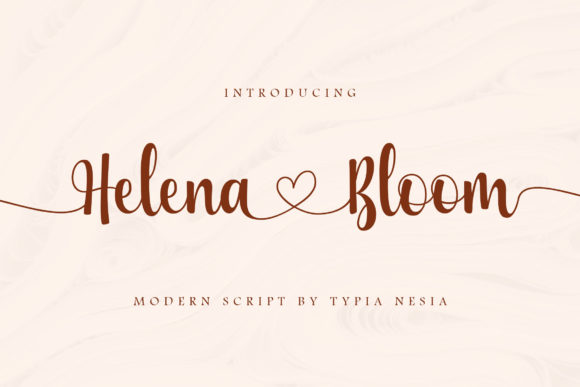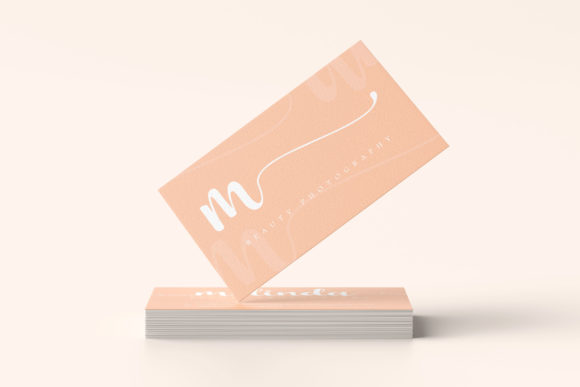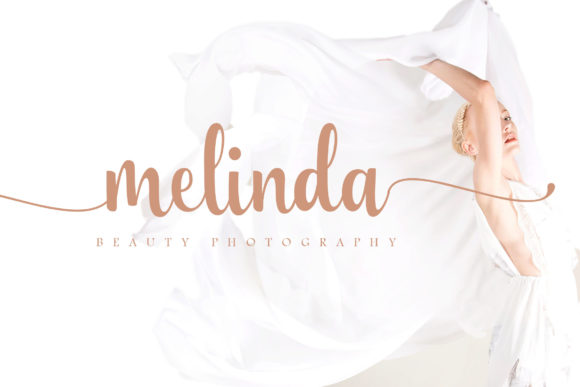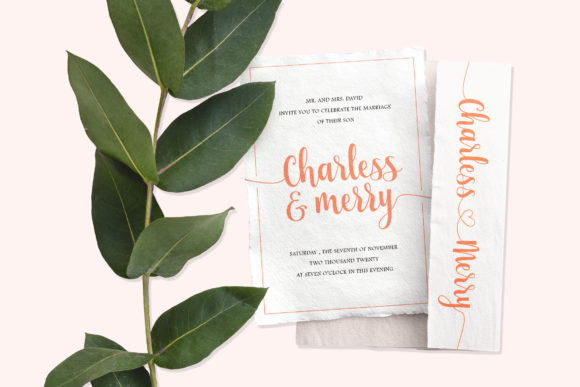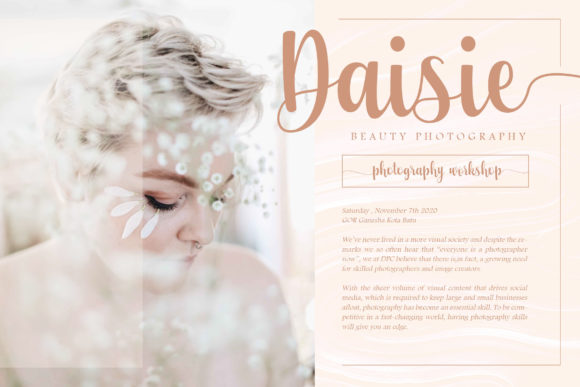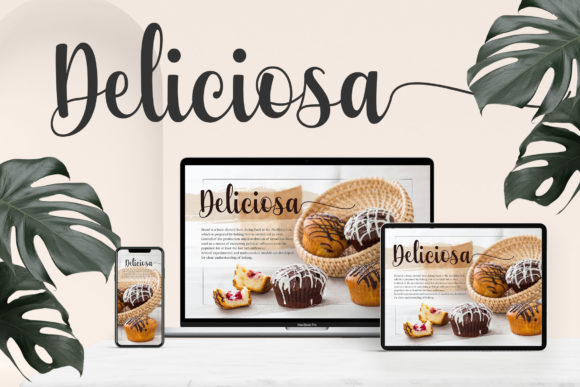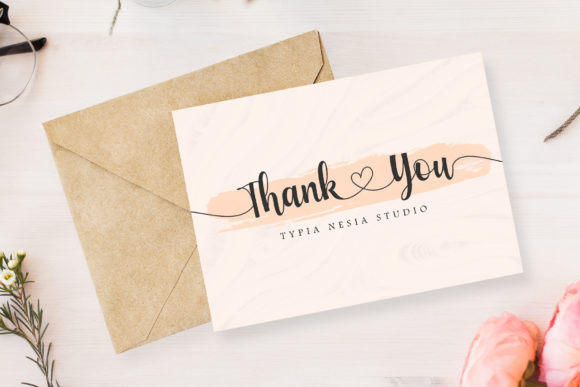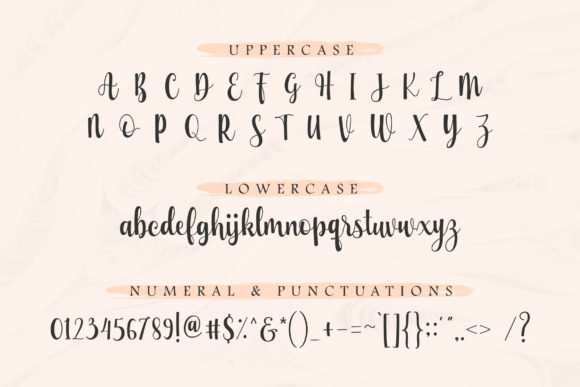
Helena Bloom Font
Helena Bloom is a romantic and delicate handwritten font, featuring hearts as ornaments. Dainty and joyful, this font will be ideal for writing wedding invitations, cards or any other design that may need a romantic, personalized touch!